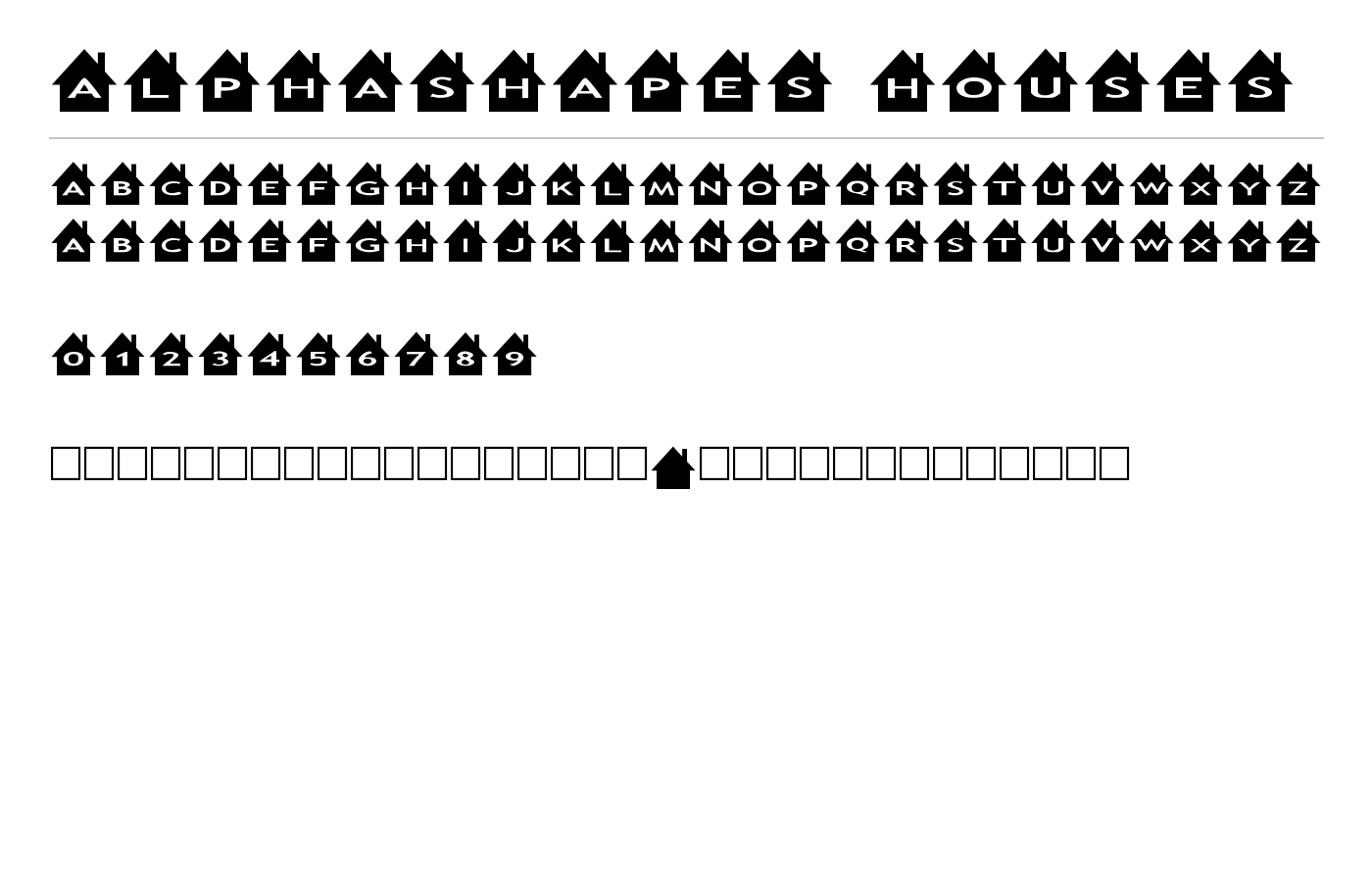
AlphaShapes Houses is a playful and bold display font featuring uppercase letters contained within solid house-shaped icons. Its compact and sturdy design creates a strong visual impact, perfect for themes related to real estate, home decor, or community projects. This unique font works best in logos, headlines, and promotional materials where a fun, distinctive look is desired.
AlphaShapes houses Font
About AlphaShapes houses Font